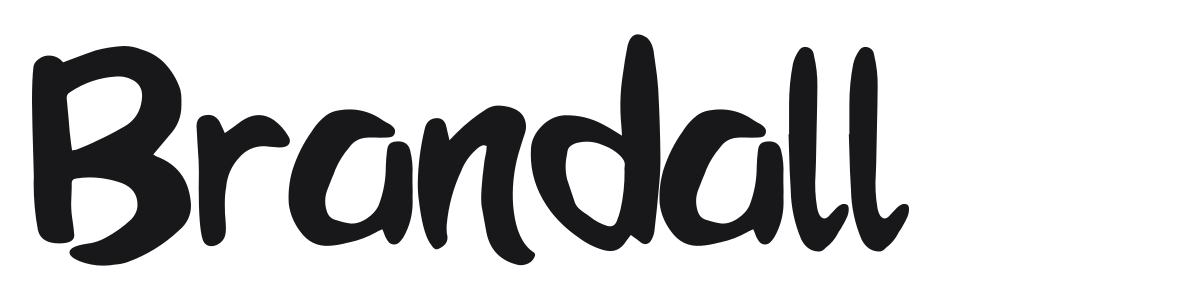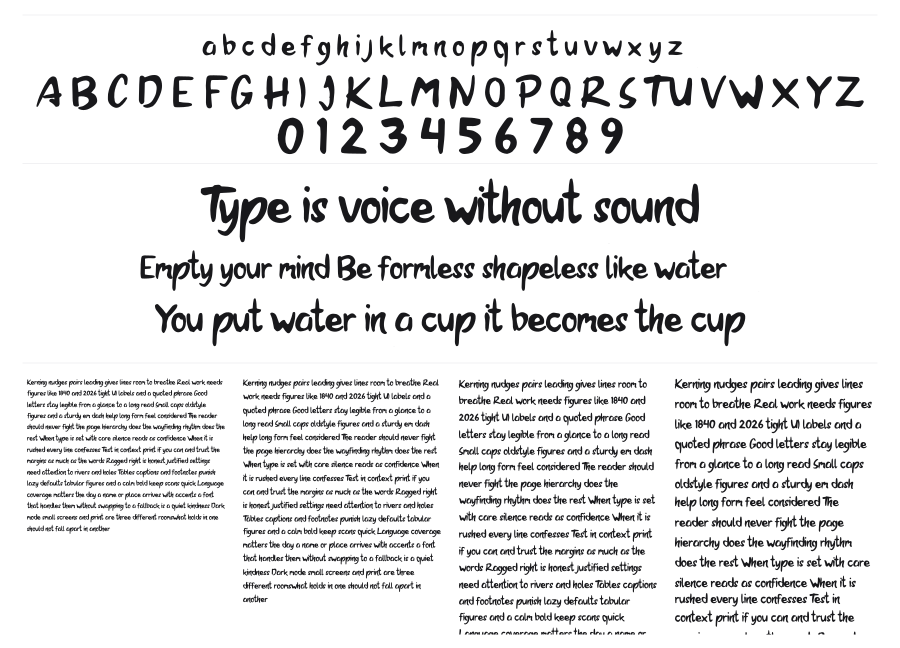
Brandall
by Afif Rosadi
Brandall is a bold casual script with thick rounded strokes and a confident hand-lettered feel. The loose, marker-like quality gives it warmth and approachability without feeling overly polished. It works well for logos, packaging, and any headline that needs a friendly, energetic voice.